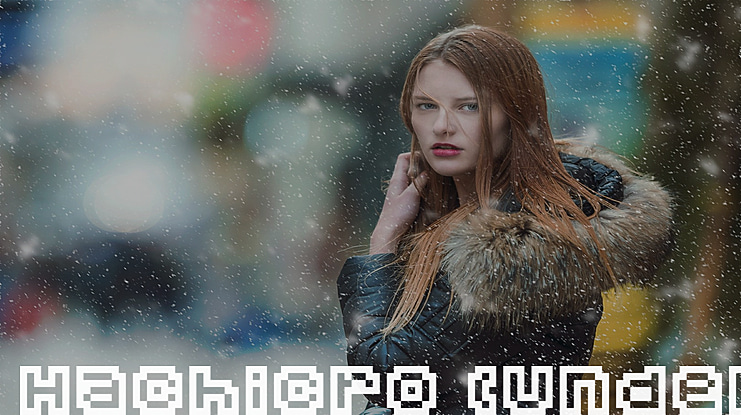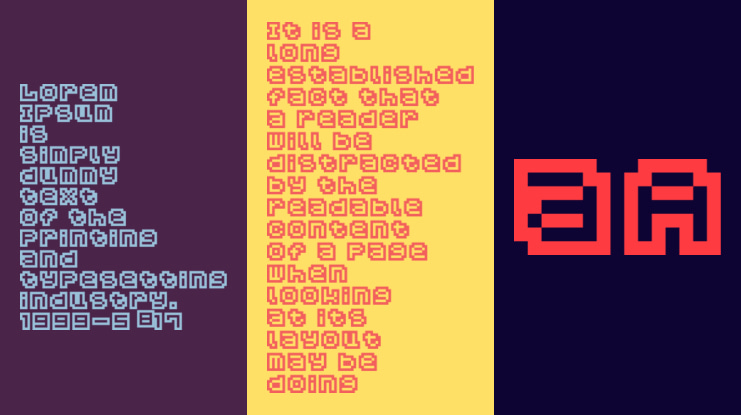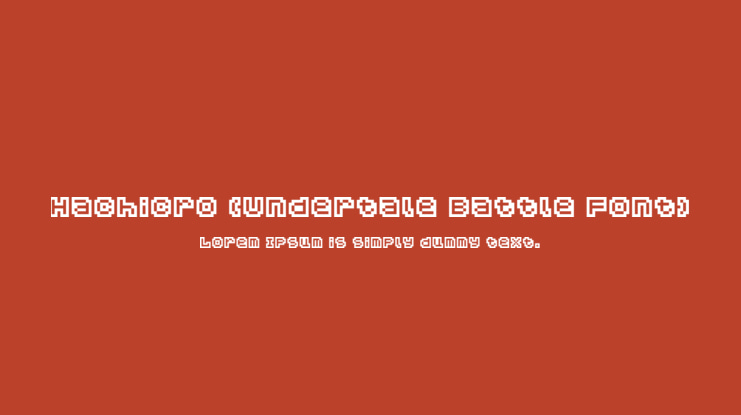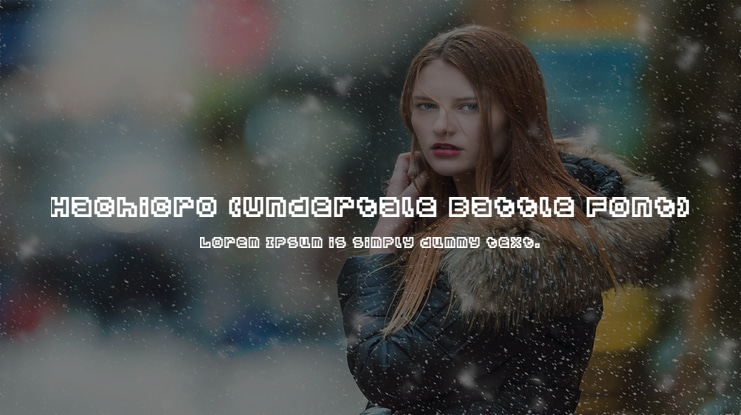
Hachicro (Undertale Battle Font)
This is the font that appears when you hit or attempt to hit an Undertale character in battle. you will see "MISS" or "1637" depending on how many points you scored by hitting the character.